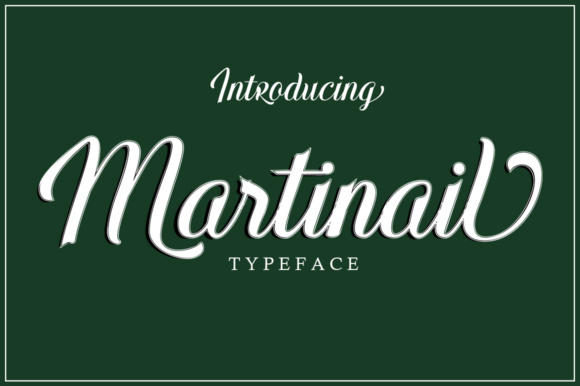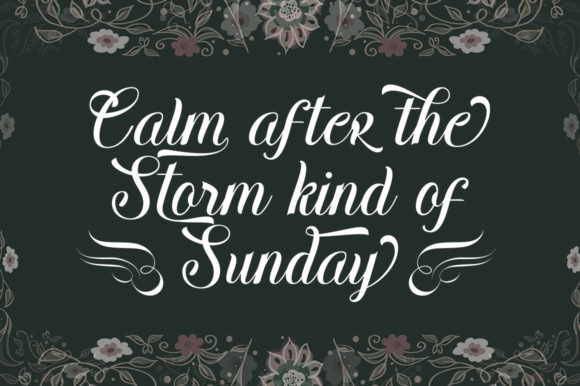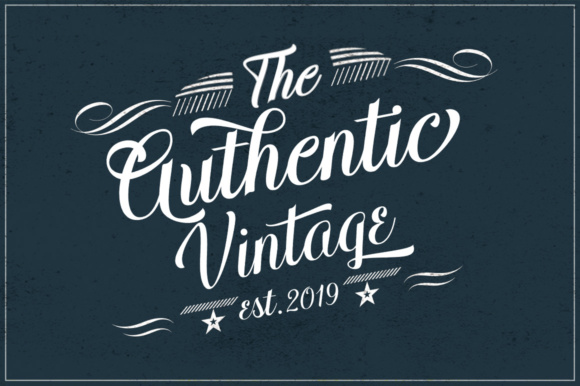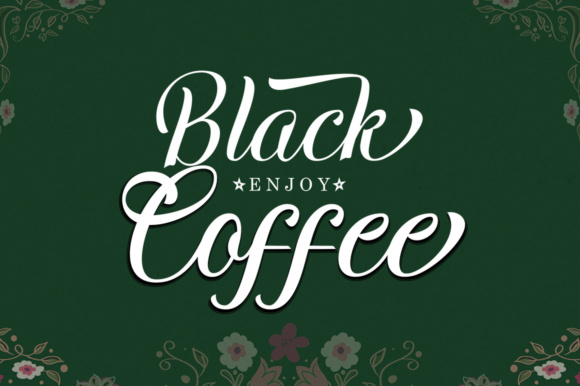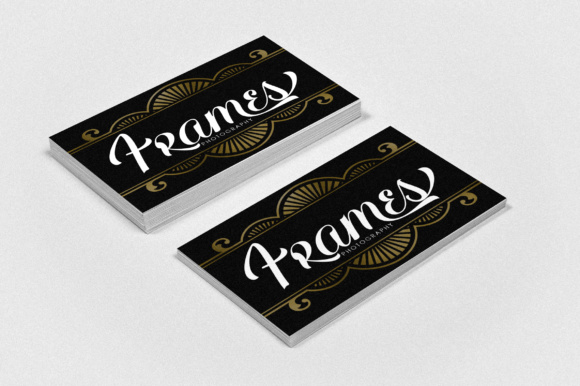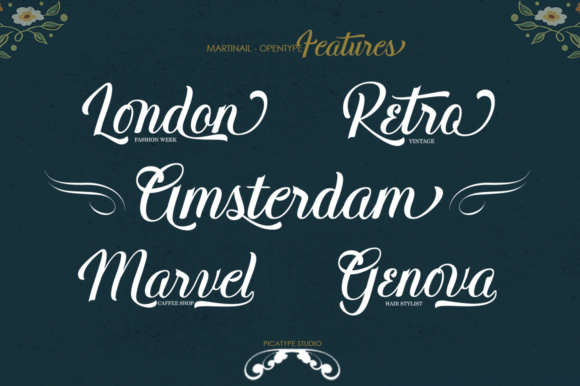
Introduction to Martinail Font
Have you ever been working on a creative project, pouring your heart and soul into it, only to realize that the perfect font is missing to tie everything together? This is where the magic of Martinail Font comes in – a beautiful contemporary calligraphic font that adds a touch of elegance and sophistication to any design.
Whether you’re a seasoned designer or just starting out, the Martinail Font is an invaluable resource that can elevate your work to the next level. Its sleek and modern design makes it perfect for a wide range of creative projects, from logos and branding to digital art and even social media graphics. With its high-quality design and transparent background, this font is a must-have for any design enthusiast.
Key Features of Martinail Font
- Features a transparent background, allowing for seamless integration into designs with complex backgrounds.
- Comes in a single font size, making it easy to use in a variety of design applications.
- Designed with high resolution in mind, ensuring crisp and clear text rendering at various sizes.
- Perfect for use in digital design, print materials, and other creative projects where a unique and elegant font is required.
Honest Review: Martinail Font
I recently stumbled upon the Martinail Font while searching for a unique design resource to elevate my creative project. I was immediately drawn to its elegant and refined aesthetic, which I thought would be perfect for a high-end branding project.
Here are some things that I think work well with the Martinail Font:
- ✨ Elegant script font style that adds a touch of sophistication to any design.
- ✨ High quality font that’s perfect for creating professional-looking designs.
- ✨ Supports transparent background, making it easy to use with any design element.
However, there are a few limitations that I’ve noticed:
- ⚠️ Limited character set, which may not be ideal for longer blocks of text.
- ⚠️ May not be compatible with all operating systems or devices.
Overall, I think the Martinail Font is a solid design resource that can add a touch of elegance to any creative project. While it may have some limitations, its high quality and unique style make it a great choice for designers looking to create professional-looking designs.
Tips for Getting the Most Out of Martinail Font
For optimal results, use Martinail Font with a transparent background to achieve a high-quality design. You can also experiment with different font sizes and styles to create a unique look.
Common Use Cases for Martinail Font
Martinail Font is perfect for designing logos, brochures, and social media graphics. Its stylish and modern design makes it a great choice for any creative project.